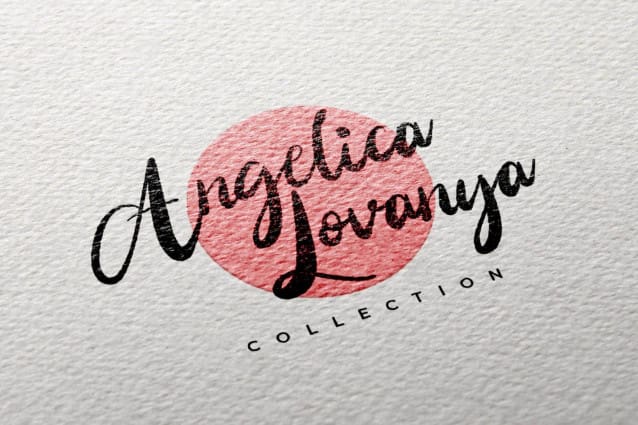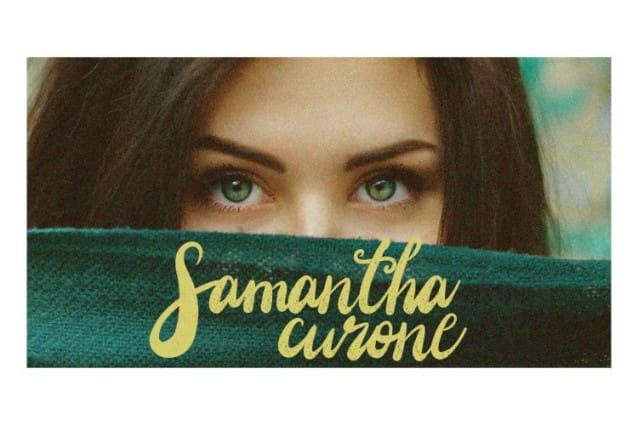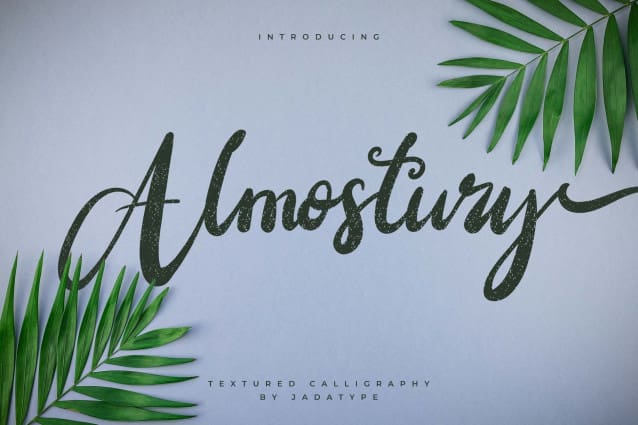
Almostury Script Font
Almostury Script Font is a romantic and sweet calligraphy typeface with characters that dance along the baseline. This font is PUA encoded which means you can access all of the glyphs and swashes with ease! Add it confidently to your projects, and you will love the results.